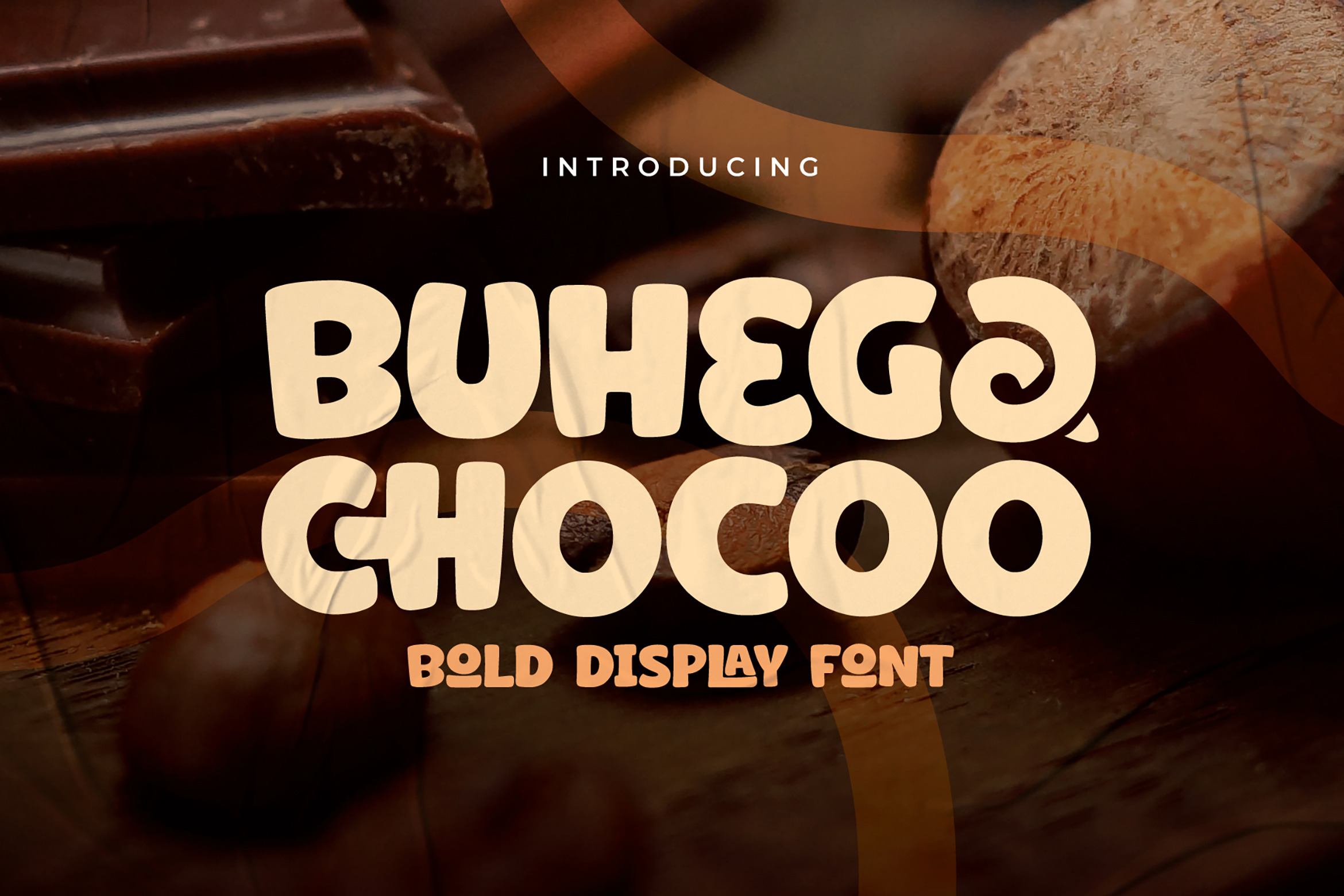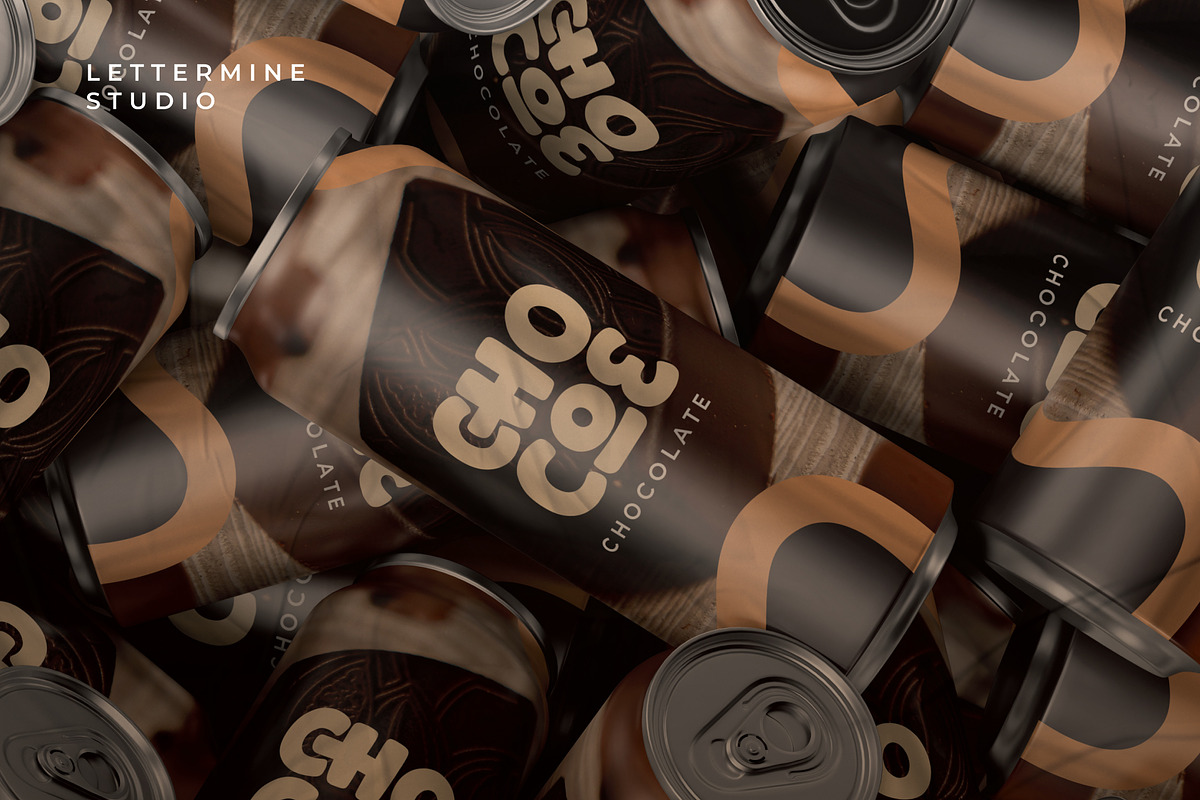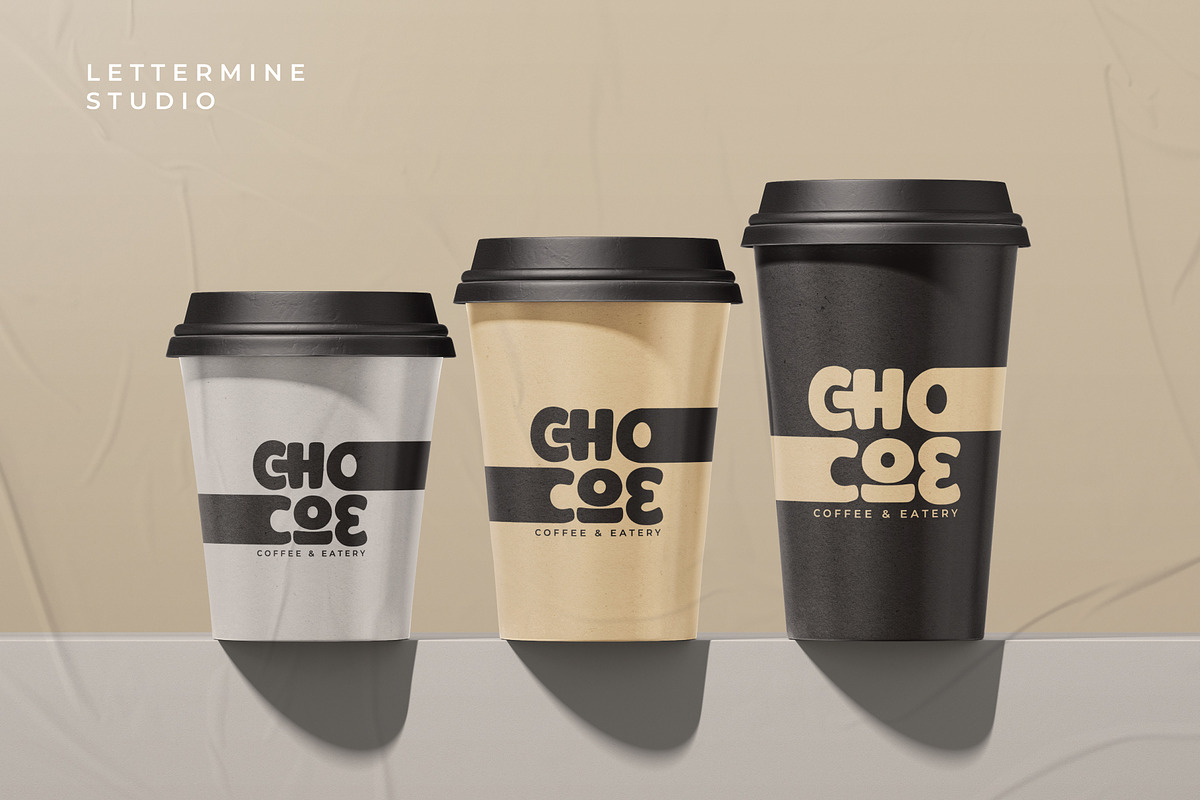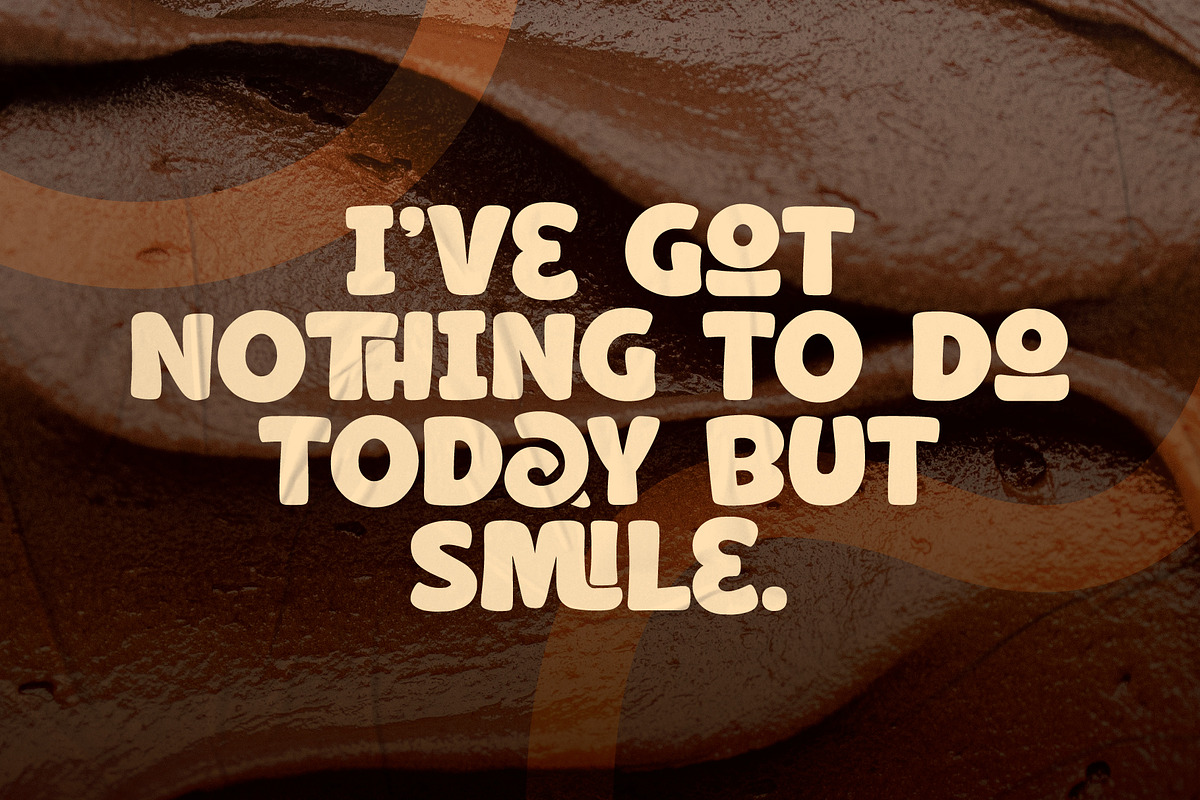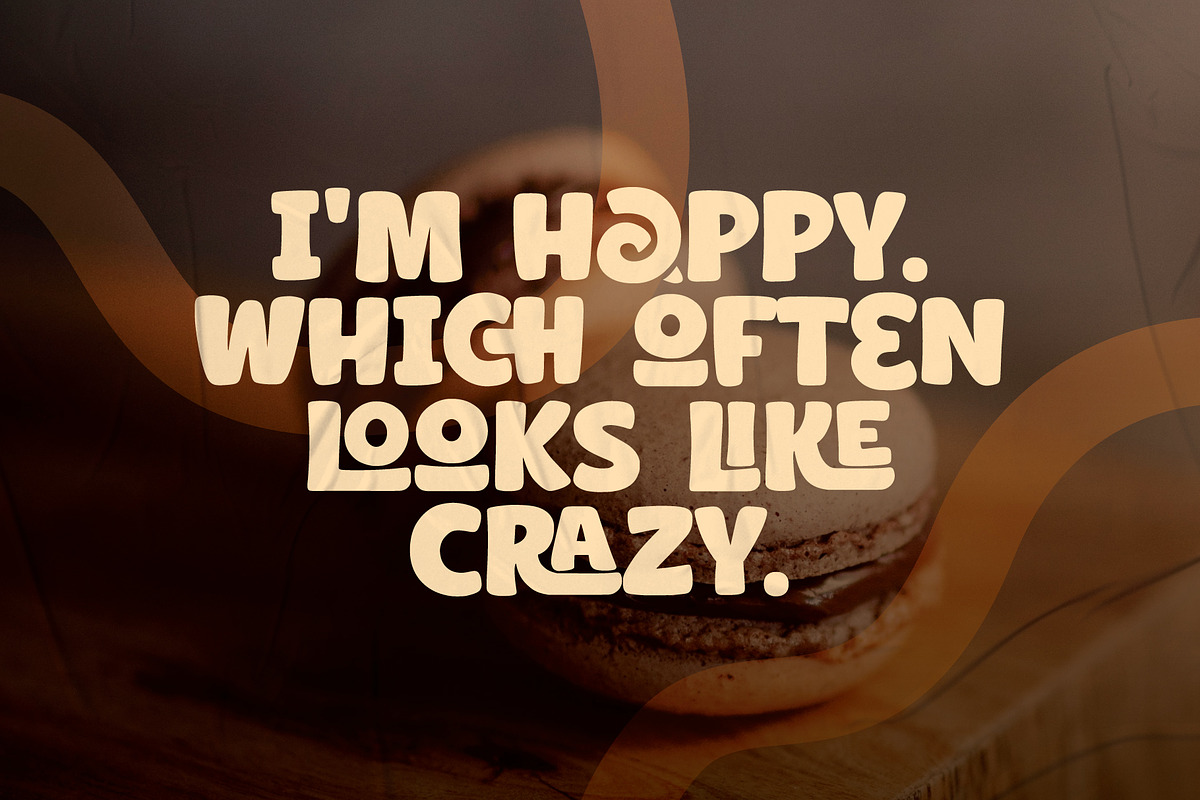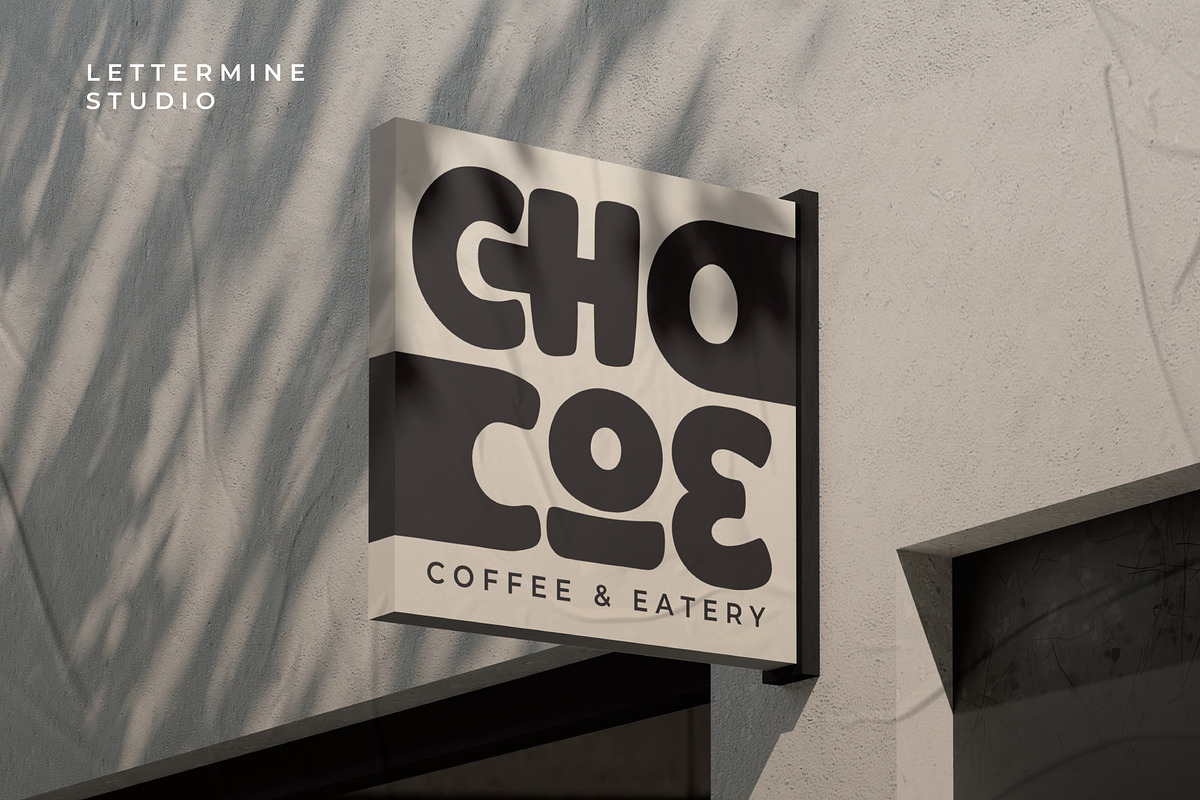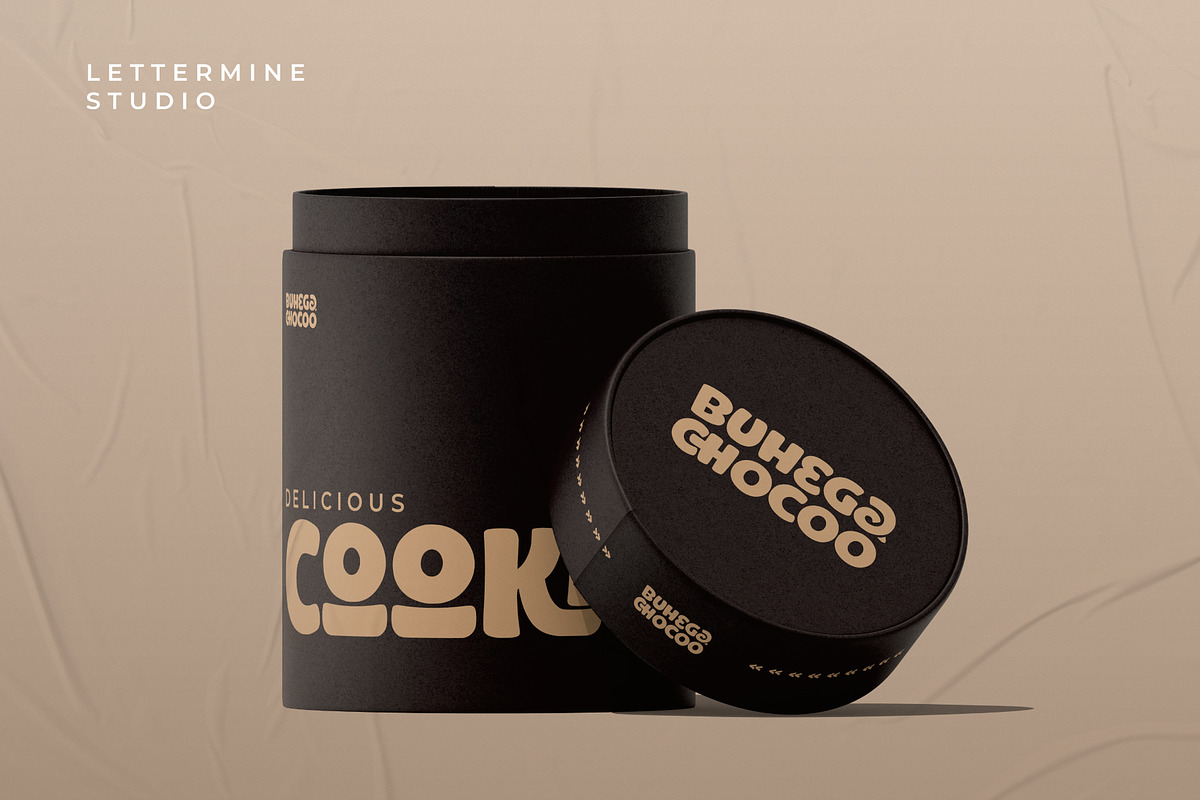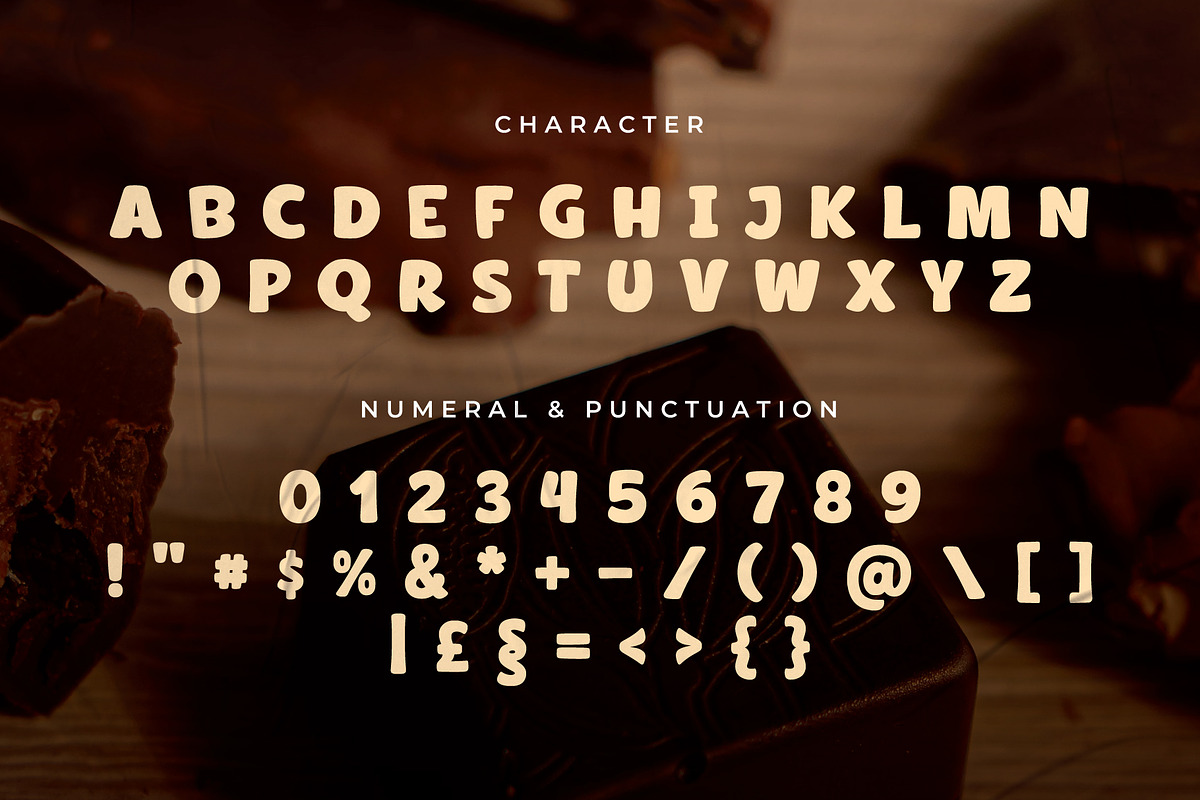
Buhega Chocoo – Bold Food Font
Buhega Chocoo is a bold display font with a lively and expressive character. Its rounded, confident letterforms bring a warm, friendly, and playful feel. Perfect for headlines, posters, creative branding, and visual content that aims to stand out and grab attention.
Add a cheerful and stylish touch to any design with Buhega Chocoo.